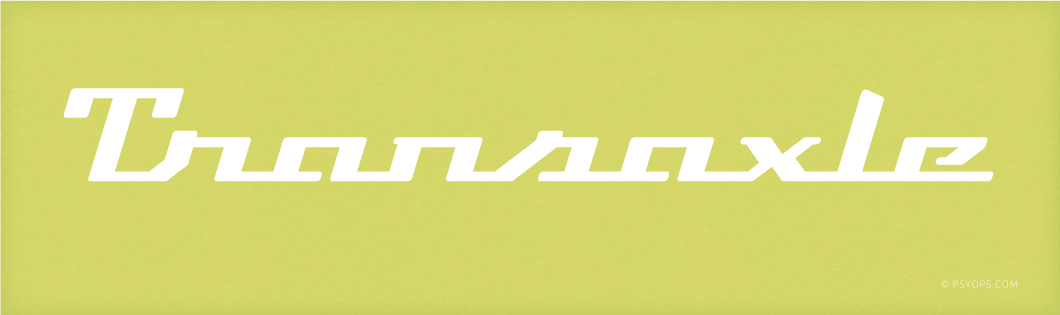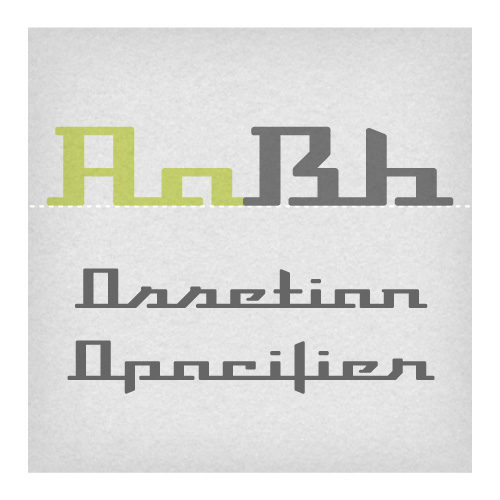
Transaxle Script
Transaxle is a retro, car-type inspired, linking script font. Transaxle Script includes an upright and a slanted font which feature: Western and Eastern European characters, stylistic alternates, and more.